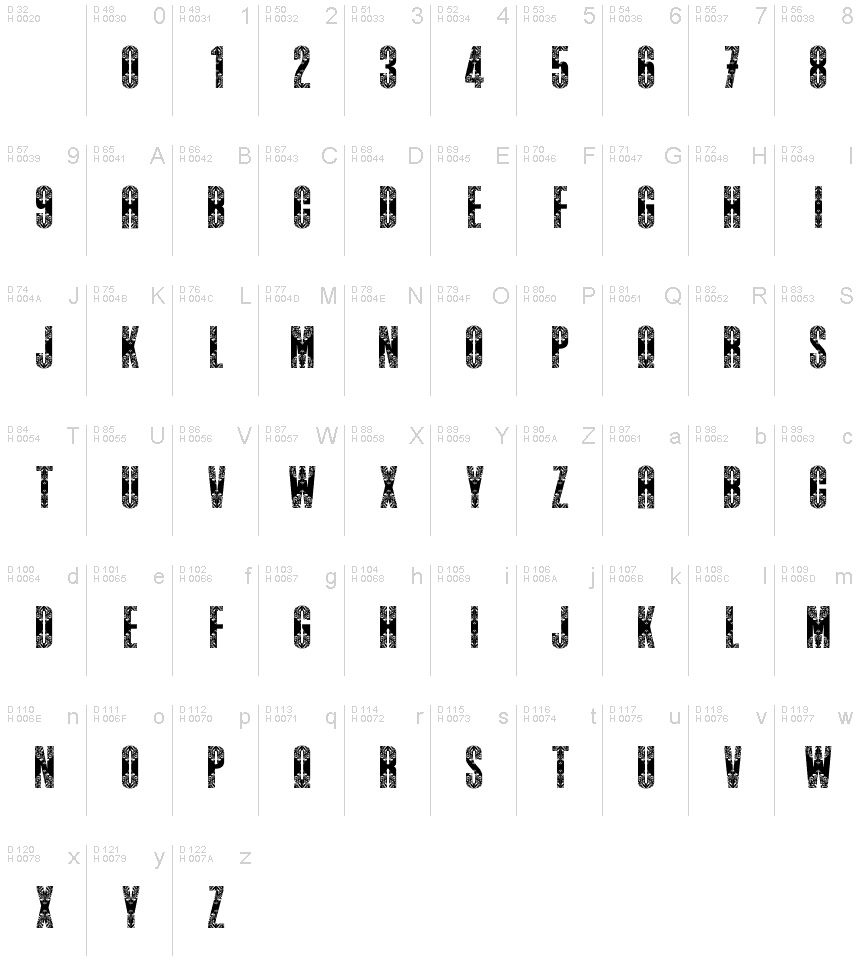
Invitation
Invitation, a bold and decorative display font by scratchones, adds a touch of elegance to your creative projects. With its extra-condensed width, this typeface is perfect for designing wedding invitations, event posters, and luxury branding materials. Its striking and unique style captivates attention, making it suitable for crafting eye-catching social media graphics or impactful magazine covers. Invitation's bold weight ensures legibility and makes it an ideal choice for headlines in editorial layouts or website banners. Embrace the charm of Invitation font and elevate your designs with its sophisticated allure.